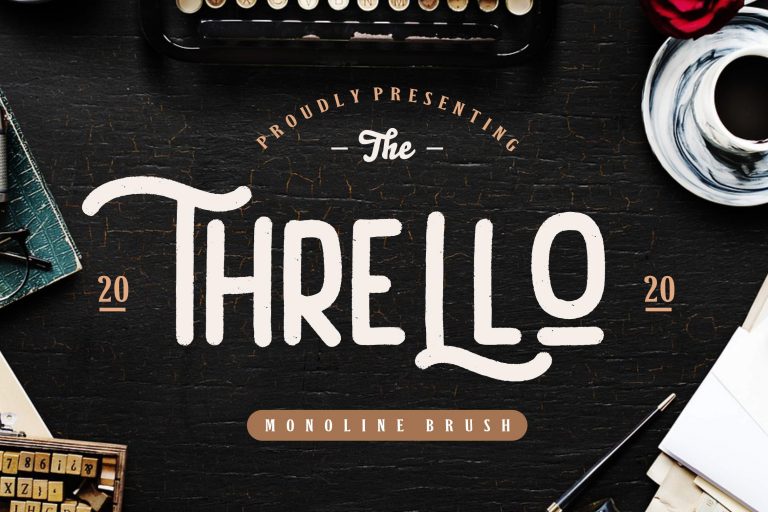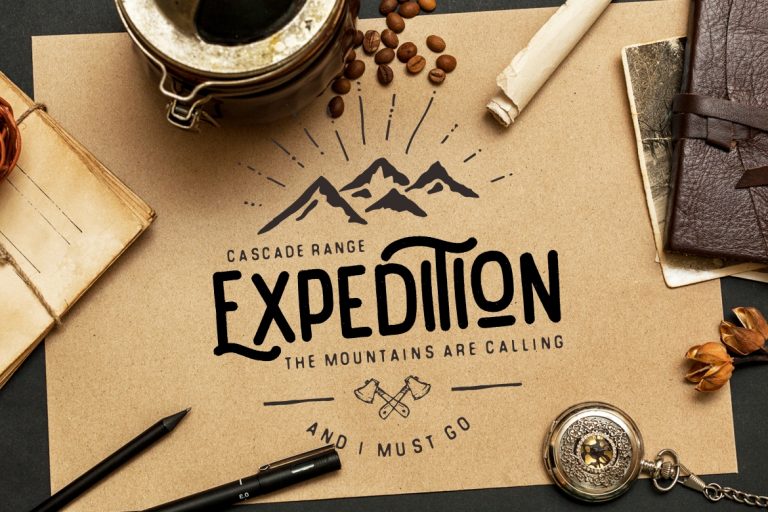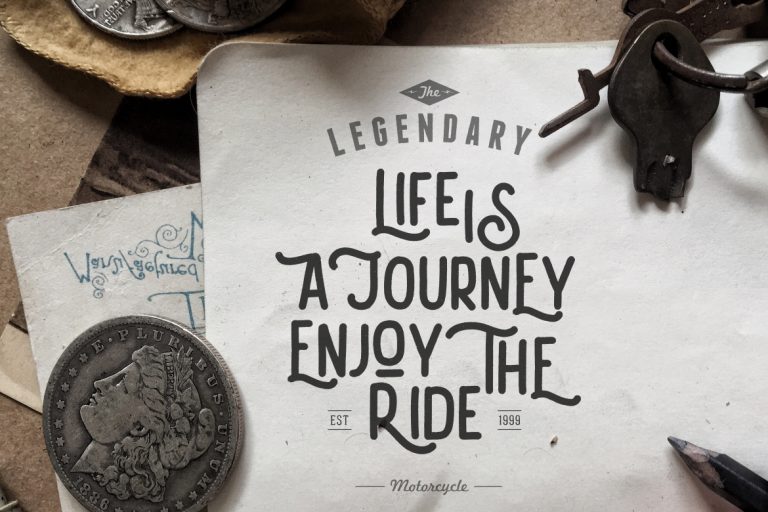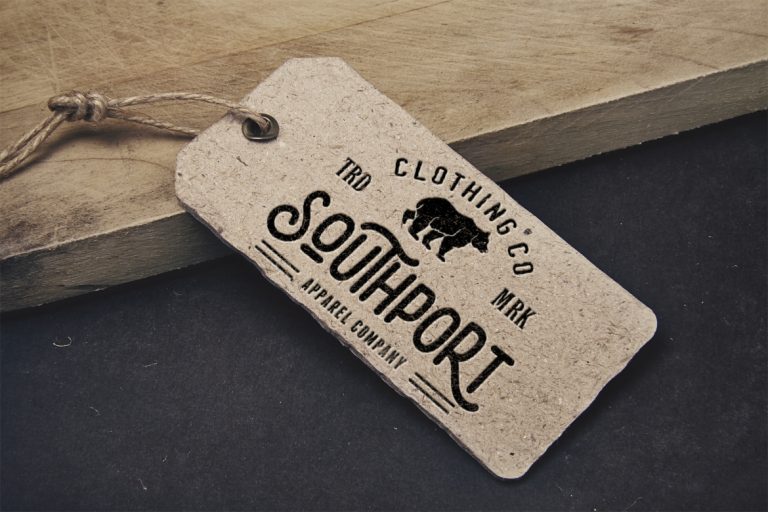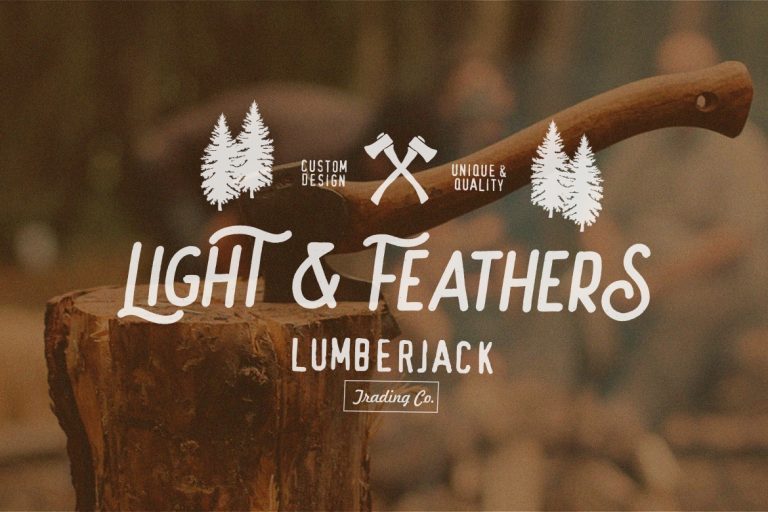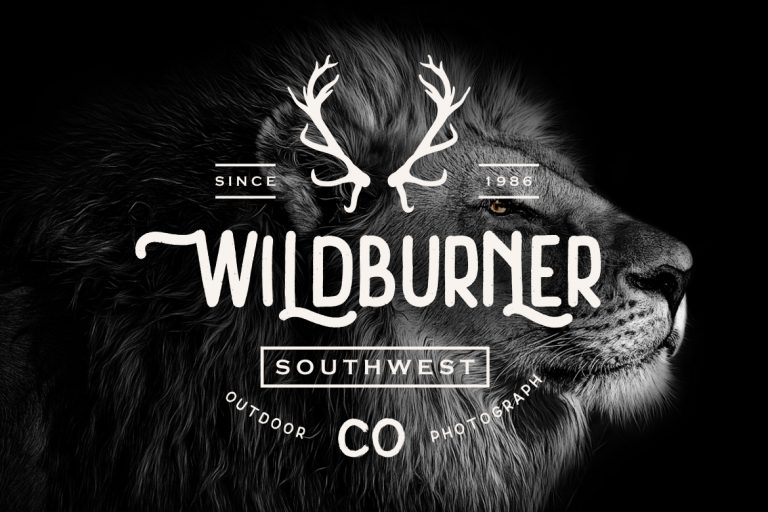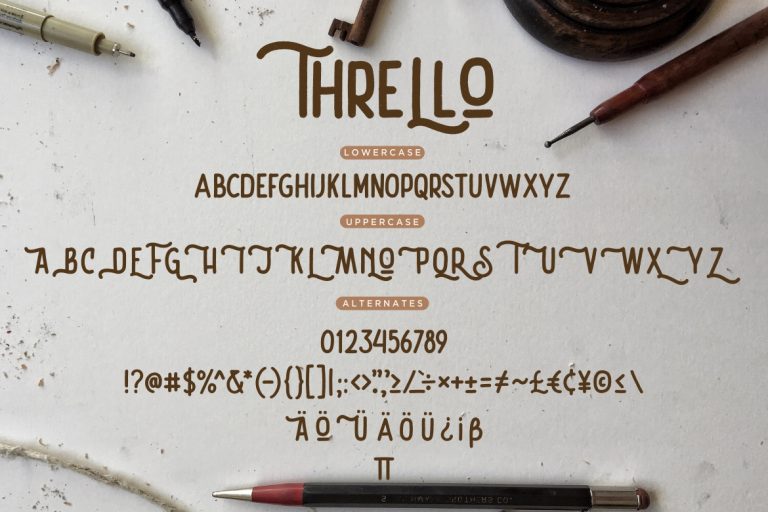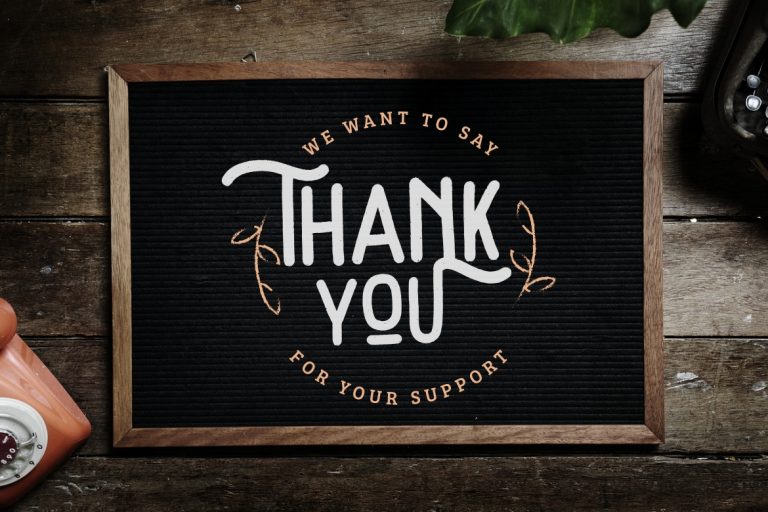
Thrello Monoline Brush
Thrello Monoline is monoline sans serif font with brush effect and vintage & retro style will makes your project looks
Thrello Monoline is perfect for branding projects, logo, wedding designs, social media posts, advertisements, product packaging, product designs, label, photography, watermark, invitation, stationery and any projects that need handwriting taste.
• Ligature